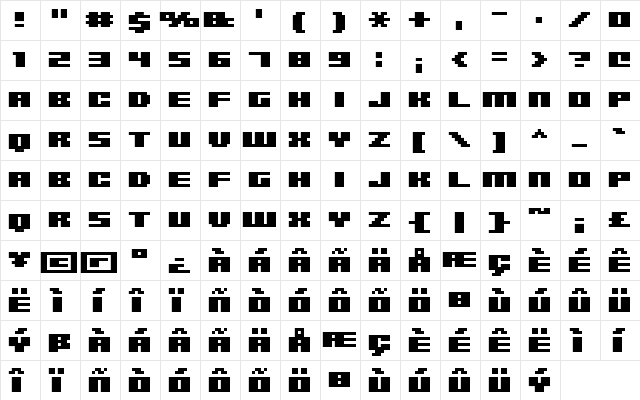
FFF Access Extended Regular
Design Context for FFF Access Extended Typeface
FFF Access Extended is a composed and adaptable typeface that performs quietly and consistently across a wide range of design contexts.